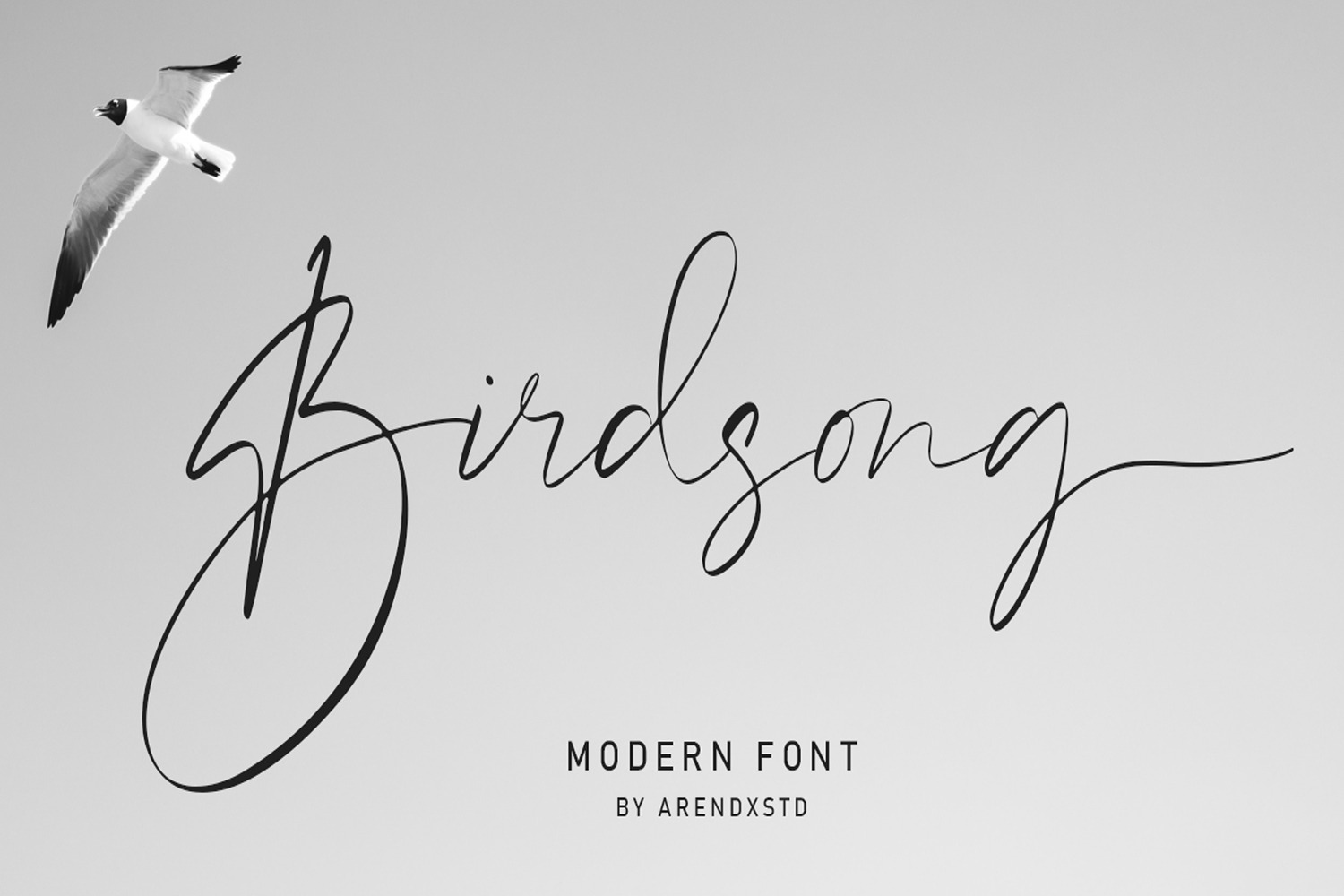
Birdsong - Script Font
Introducing my latest font is Birdsong, a handwritten font which is very elegant and modern for you to use and your design interests be it for logos, branding names, posters, podcasts and so on. This is perfect for you all.